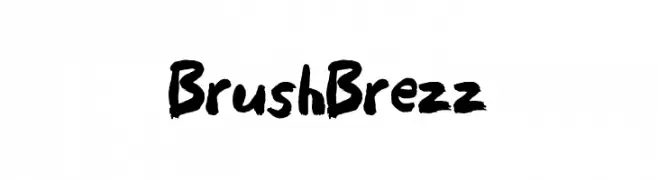
A bold and expressive script font with fluid, artistic letterforms.
A bold, italic, and modern sans-serif font with consistent stroke thickness.
A dynamic and flowing script font with elegant cursive letterforms.
A bold, decorative font with intricate, swirling embellishments and a gothic influence.
A fluid and elegant script font with a handwritten style.
A bold, playful handwritten font with thick strokes and rounded edges.
A playful, elegant handwritten font with modern loops and smooth curves.
A lively, expressive handwritten font with fluid, dynamic letterforms.
A playful, handwritten script font with bold uppercase and fluid lowercase letters.
A playful, handwritten font with bold, irregular strokes.
A bold, futuristic font with geometric shapes and cosmic textures.
A modern, geometric sans-serif font with clean lines and uniform strokes.
A bold, modern sans-serif font with clean lines and a strong presence.
A bold, italicized font with strong, dynamic strokes and a modern aesthetic.
A modern geometric sans-serif font with clean lines and balanced proportions.
A sleek, modern italic font with consistent stroke width and a dynamic appearance.
A sleek, modern italic font with clean lines and balanced proportions.
A modern, geometric sans-serif font with a clean and minimalist design.
A sleek, light, and italicized font with a modern and elegant style.
A playful, rounded font with bold outlines and consistent character width.
A bold, brush-stroke font with a dynamic, hand-drawn appearance.
A bold, geometric font with a modern and angular design.
A graceful, cursive font with elegant, flowing strokes.
A flowing, elegant script font with smooth, connected strokes.
A bold, expressive script font with dynamic flow and elegant curves.
A bold, expressive brush-style font with a hand-painted appearance.
A flowing, cursive font with elegant loops and swirls.
A bold, dynamic script font with elegant, flowing letterforms.
A bold, elegant script font with high contrast and flowing curves.
A casual and elegant handwritten font with fluid, natural strokes.
A playful, handwritten font with dynamic strokes and a casual, artistic flair.
A bold, dynamic script font with fluid, connected letterforms and a modern vibe.